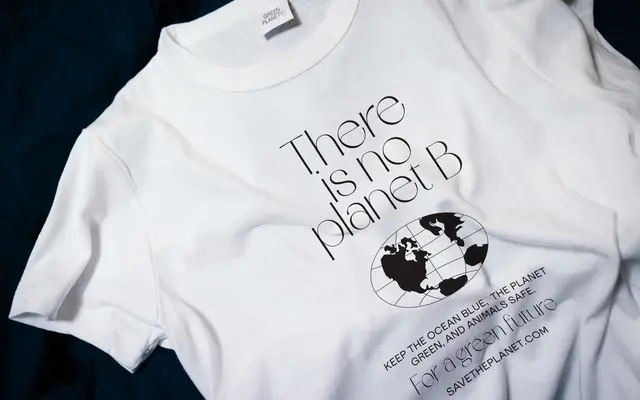
A high-contrast old style serif with calligraphic terminals and Roman Capital Proportions, aiming for refined elegance.
Inspired by the French word for a calm, serene atmosphere, this old style serif draws on classic humanist proportions and features tapered calligraphic terminals with impaled counters. The high-contrast stroke structure gives it a formal, decorative quality suited to editorial headers and luxury branding. Currently offered in a single Regular weight with Latin Extended glyph coverage, including South Slavic characters.
Described as rooted in Old Style typography with Roman Capital Proportions, high contrast, and calligraphic terminals, placing it firmly in the humanist old style serif tradition.